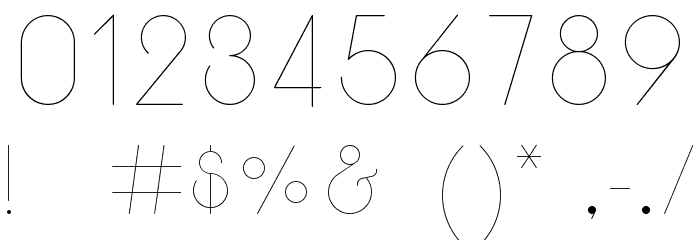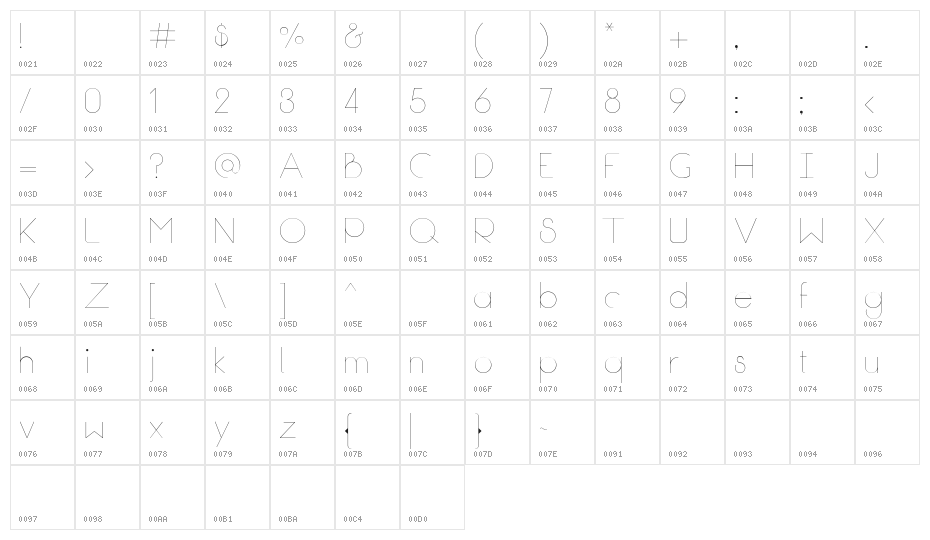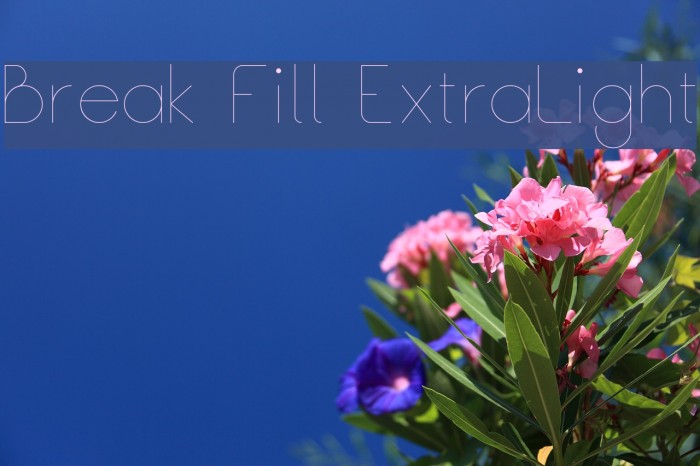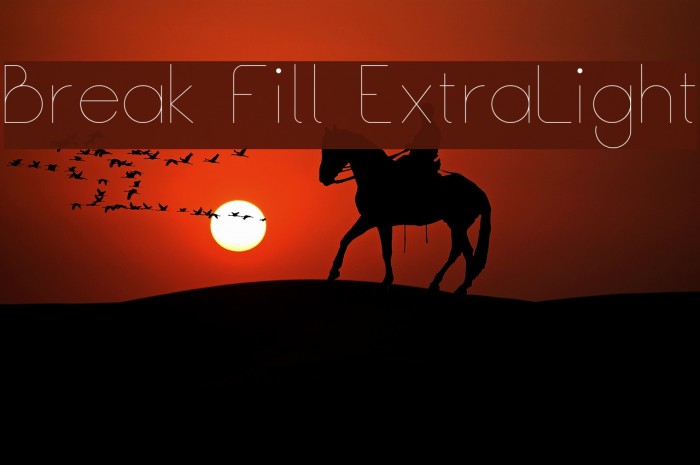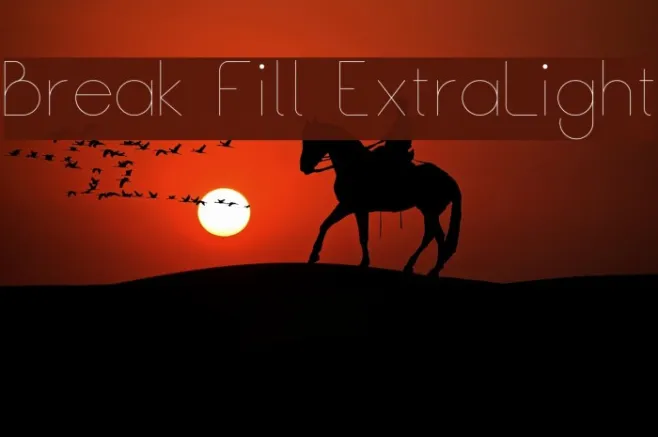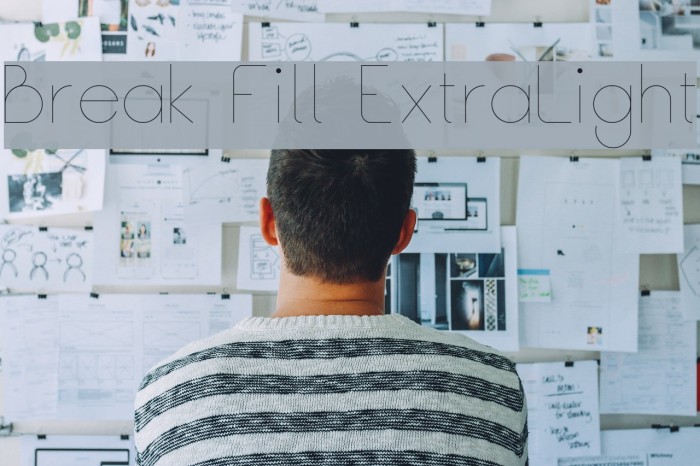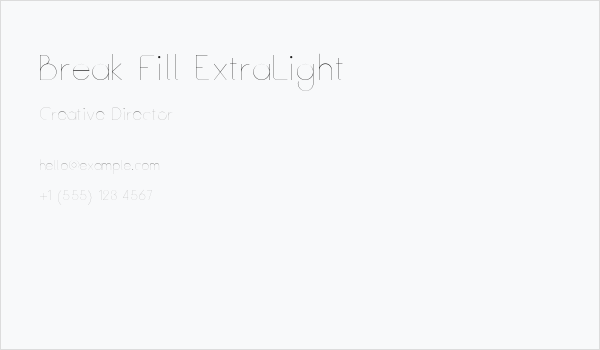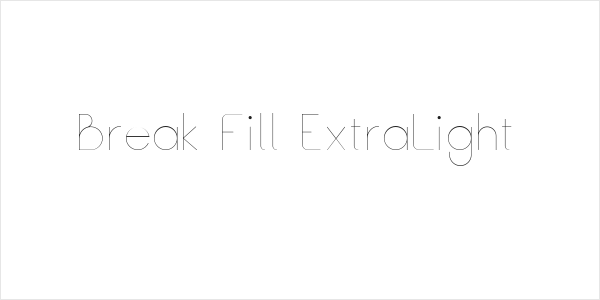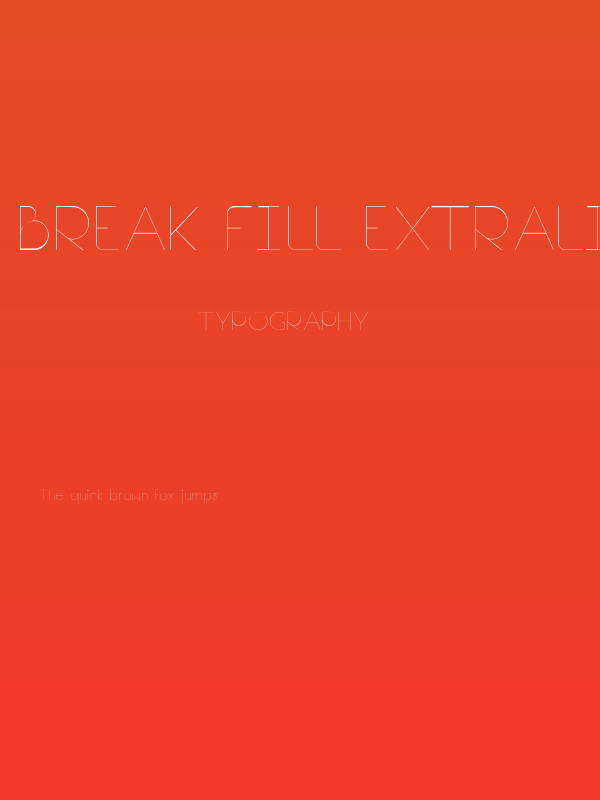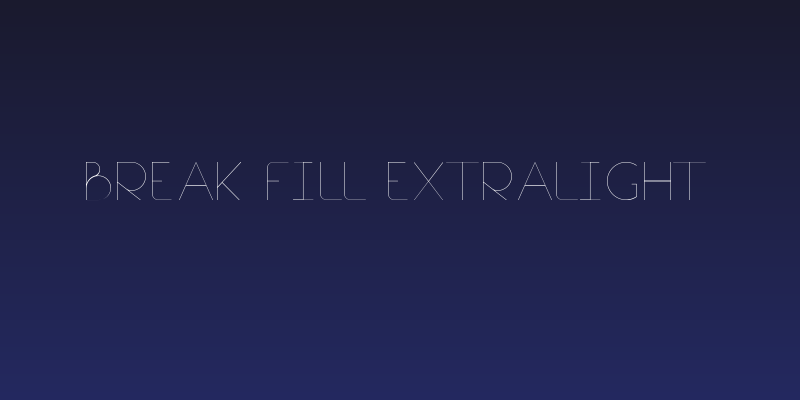
Break Fill ExtraLight Font
Break Fill ExtraLight Description
This font features a minimalist and geometric design, characterized by thin, uniform strokes that create a clean and modern appearance. The characters are constructed with precise lines and curves, giving it a sleek and contemporary feel. The uppercase and lowercase letters maintain a consistent style, with rounded edges and open counters that enhance readability. The numerals and special characters are designed to match the overall aesthetic, providing a cohesive look across all glyphs. This font's simplicity and elegance make it suitable for a variety of design applications.